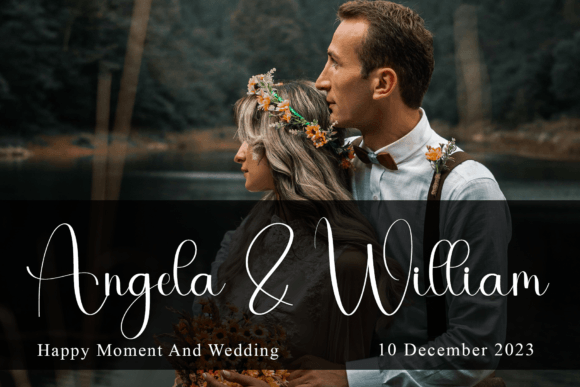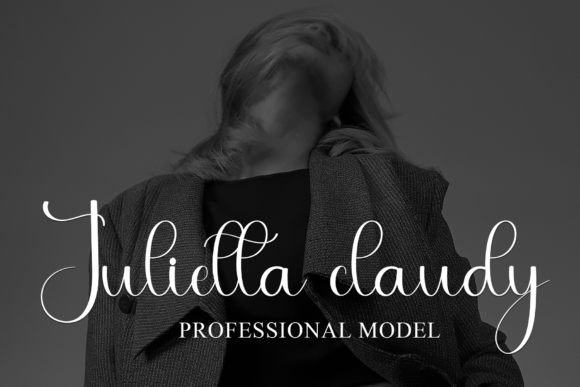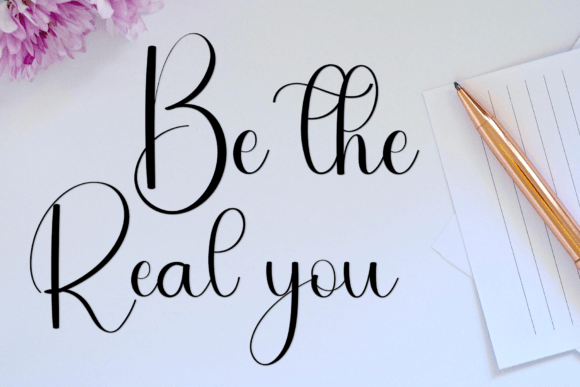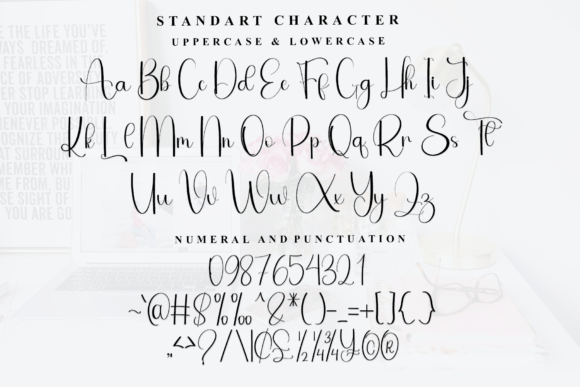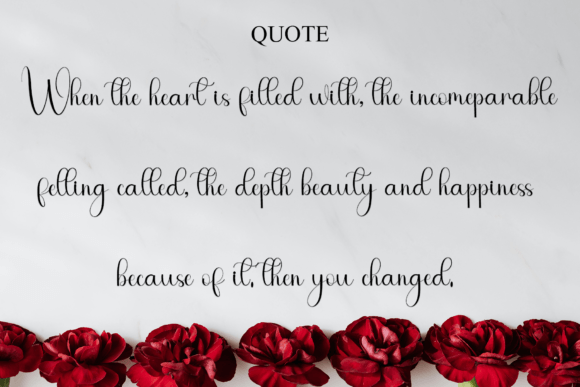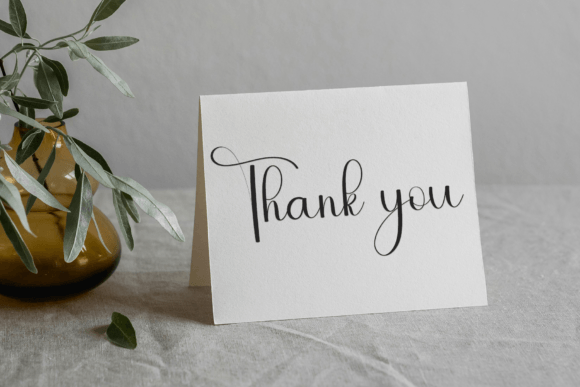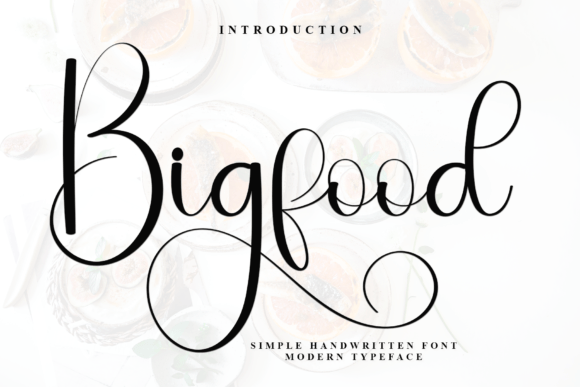
Introducing Bigfood Font: The Festive Typeface for Holiday Cheer
The holiday season is upon us, and what better way to spread cheer than with a font that’s as merry and bright as the season itself? Look no further than Bigfood Font, a festive and whimsical typeface designed to capture the magic of Christmas. With its decorative elements and nostalgic flair, this font is perfect for adding a touch of enchantment to your designs, from greeting cards and gift tags to holiday-themed projects and more.
A Font that’s Full of Holiday Cheer
Bigfood Font is more than just a typeface – it’s an experience. Its playful, cursive design is reminiscent of classic holiday fonts, but with a modern twist that’s sure to make your designs stand out. Whether you’re a designer, crafter, or simply someone who loves the holiday season, this font is sure to bring a smile to your face and inspire your creativity.
So what can you do with Bigfood Font? The possibilities are endless! Here are just a few ideas to get you started:
• Create festive greeting cards for friends and family
• Design custom gift tags that add a personal touch to your presents
• Make holiday-themed crafts, such as paper ornaments, garlands, and more
• Develop eye-catching social media graphics and blog posts that capture the spirit of the season
• And much more!
What You’ll Love About Bigfood Font
Here are just a few things that make Bigfood Font so special:
• Festive design: Bigfood Font is designed to capture the spirit of the holiday season, with a playful and whimsical flair that’s sure to bring cheer to your designs.
• Decorative elements: From snowflakes to holly leaves, Bigfood Font features a range of decorative elements that add an extra touch of magic to your designs.
Tips for Using Bigfood Font
Here are a few tips for getting the most out of Bigfood Font:
• Experiment with different sizes and colors: Bigfood Font looks great in a range of sizes and colors, so don’t be afraid to experiment and find the perfect combination for your design.
• Combine with other fonts: Bigfood Font pairs well with a range of other fonts, so try combining it with different typefaces to create a unique look.
• Use with holiday-themed graphics: Bigfood Font is perfect for use with holiday-themed graphics, such as snowflakes, holly leaves, and more.
Bigfood Font is the perfect addition to any designer’s toolkit, especially during the holiday season. With its festive design, decorative elements, and PUA encoding, this font is sure to bring a touch of magic to your designs. So why wait? Download Bigfood Font today and get ready to make your designs shine!